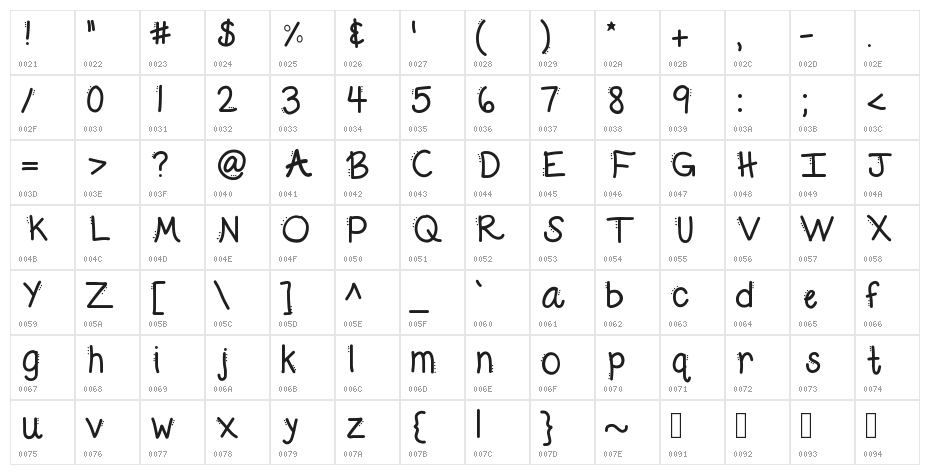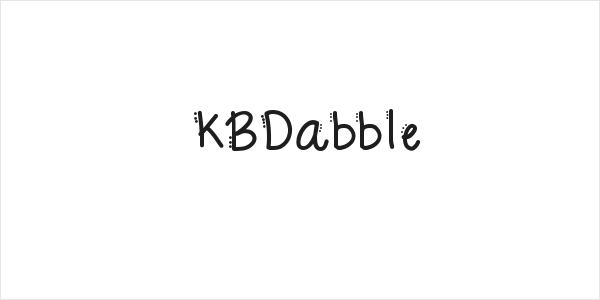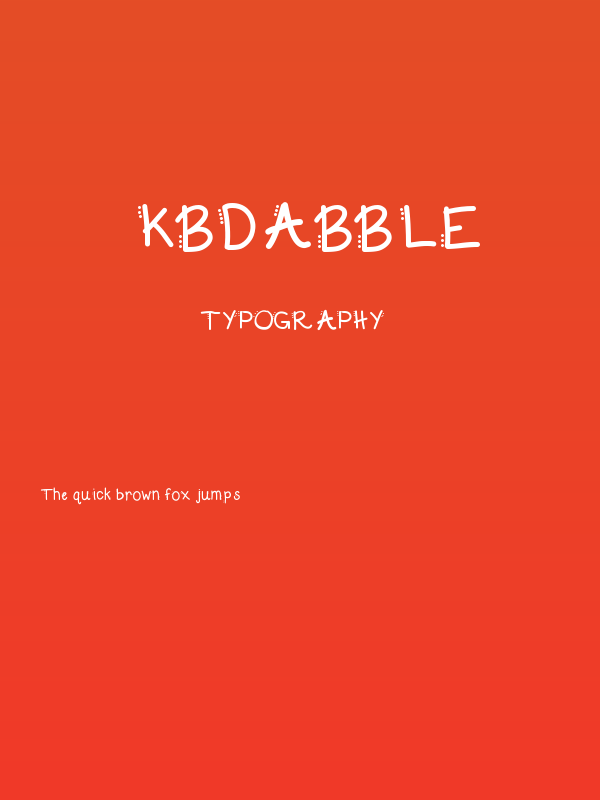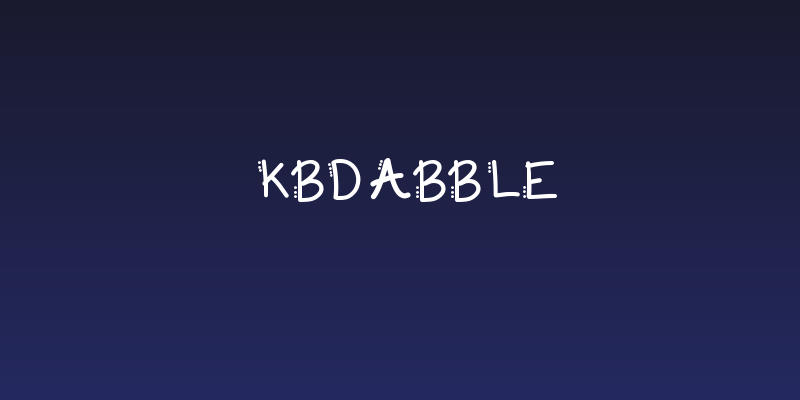
KBDabble Font
| Caz de utilizare | Headlines, Logos, Creative projects |
| Proiecte propuse | Ideal for children's books, greeting cards, playful branding, and creative posters. |